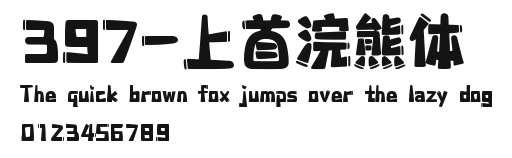
397-上首浣熊体 Preview
• Font Name: 397-上首浣熊体
• Full Font Name: 397-上首浣熊体
About 397-上首浣熊体.ttf
397-上首浣熊体.ttf is a modern, elegant sans-serif font designed for ultimate readability and visual harmony. Perfect for branding, headlines, web design, and print materials.